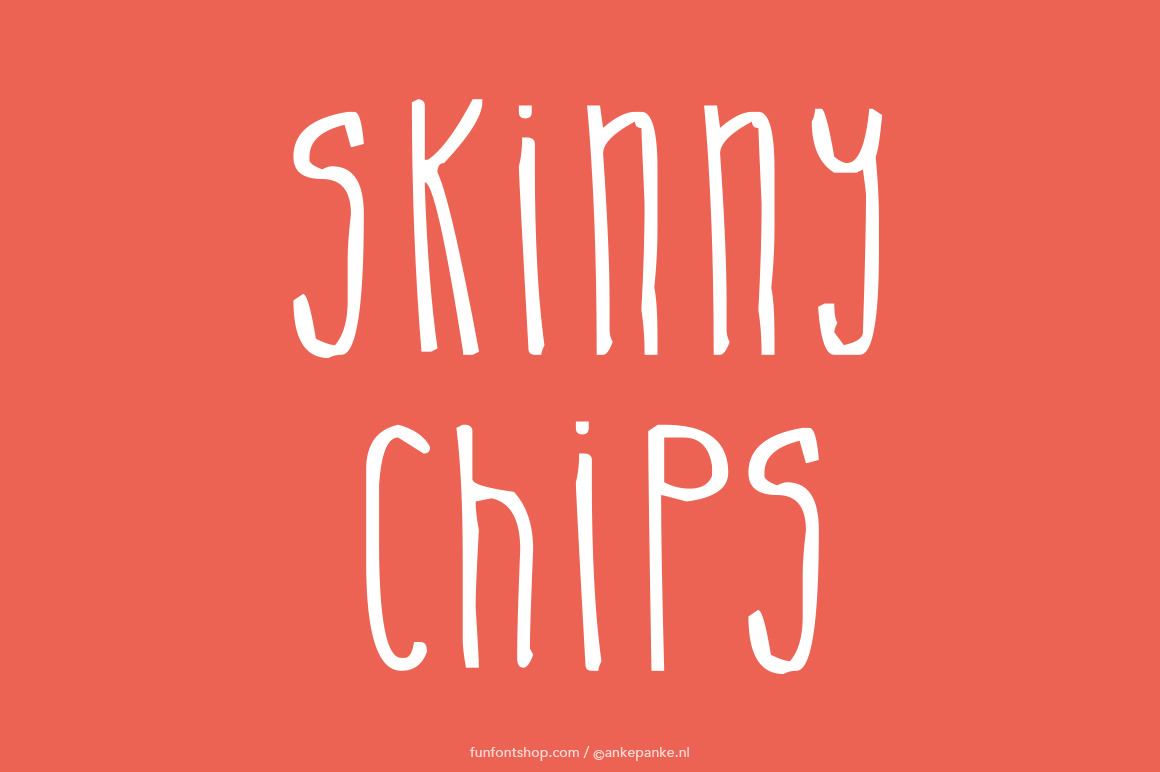
Skinny Chips handmade Font
A thin, playful font that looks like handwriting. This font was first draw by hand, scanned, vectorized and converted to a TTF file so you type with it. They have some imperfections, but I believe that adds to the handmade feeling.
- Letters Uppercase, lowercase and numbers
- Extra hearts, stars and triangles